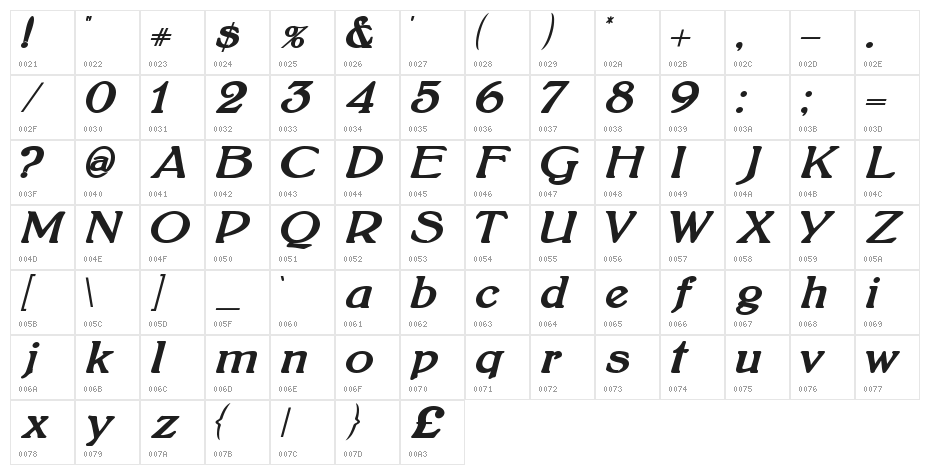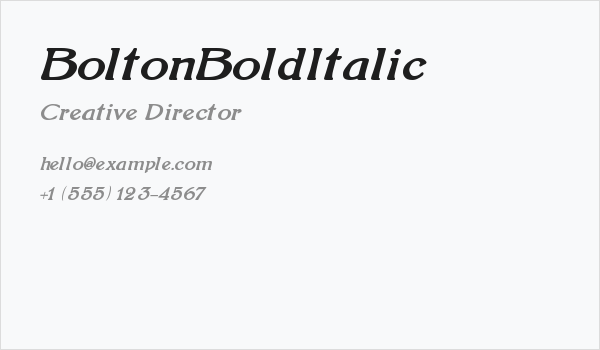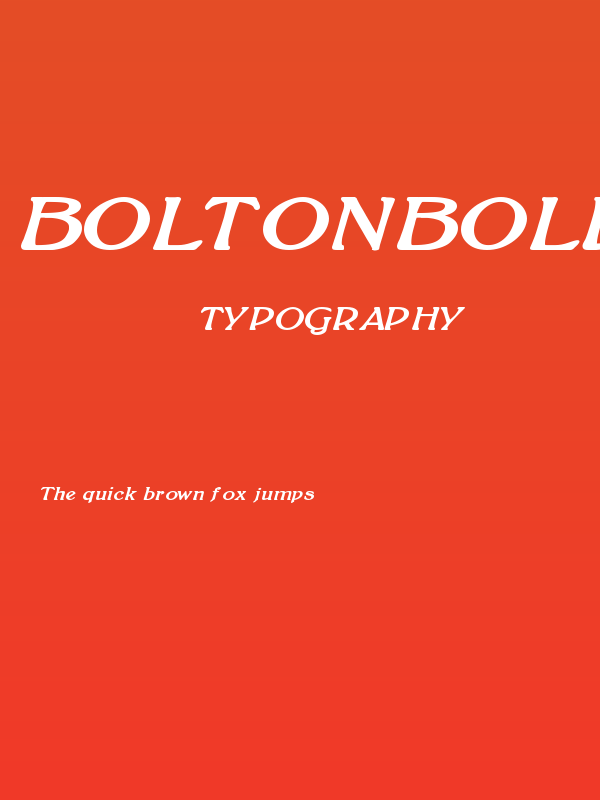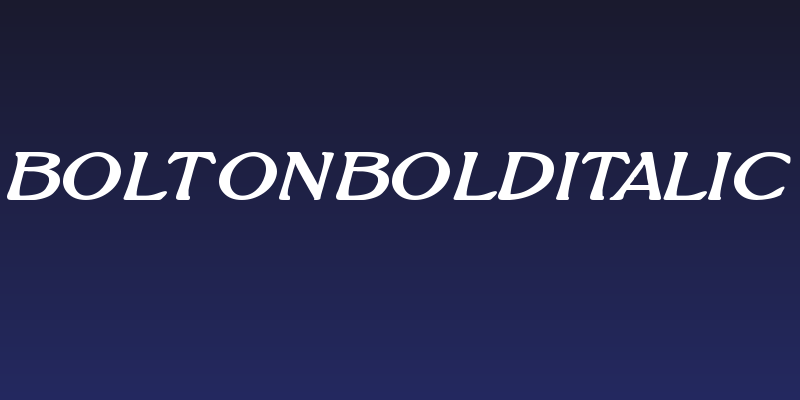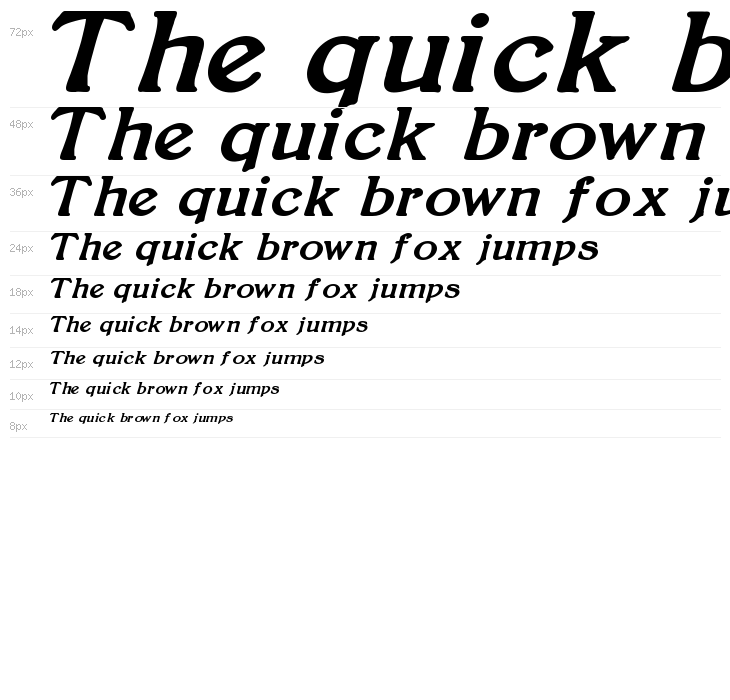
BoltonBoldItalic Font
BoltonBoldItalic Description
This font features a bold and italicized style, combining a sense of strength with elegance. The letters are slightly slanted, adding a dynamic and forward-moving appearance. The strokes are thick, providing a strong visual impact, while the serifs add a touch of classic sophistication. The overall design is well-suited for making a statement, with each character maintaining clarity and readability. The numbers and special characters are designed to match the bold and italicized nature of the letters, ensuring consistency across all elements.
| Proposed Projects | Ideal for branding, headlines, posters, and any design requiring a bold statement. |